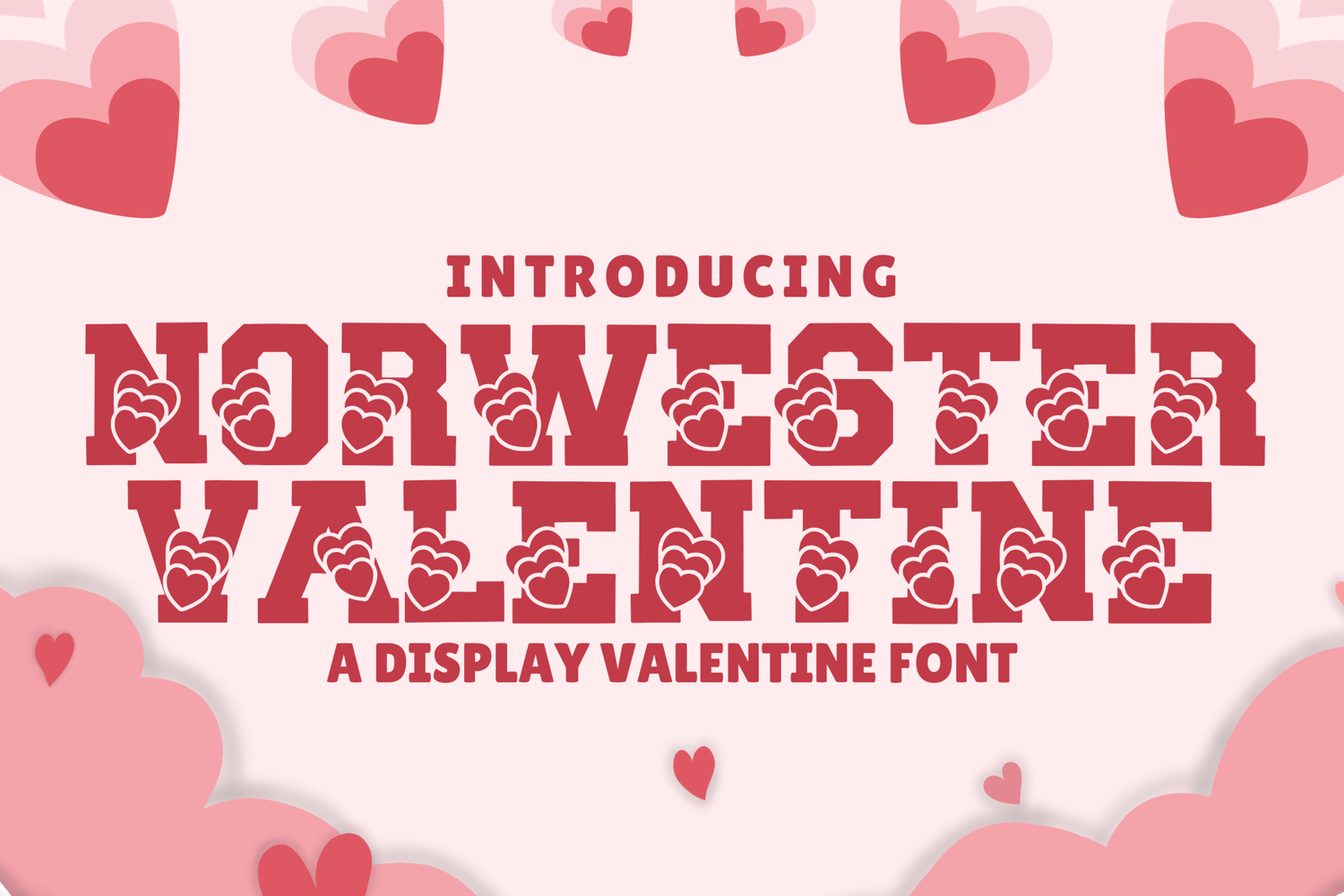
Norwester Valentine - Bold Varsity Love Font
Norwester Valentine
Celebrate love with Norwester Valentine, a bold all-caps varsity block font infused with a romantic twist. Inspired by the strength of collegiate typography, this font adds a playful Valentine’s vibe to the classic Norwester style, making it perfect for greeting cards, seasonal crafts, apparel, and love-themed branding.
Whether you’re designing Valentine’s Day posters, classroom decorations, wedding signage, or couple t-shirts, Norwester Valentine delivers a strong yet charming typographic presence.
✨ Features:
• All-Caps Varsity Typeface with a festive romantic theme
• Bold, condensed letterforms for maximum impact
• Includes uppercase, numbers, punctuation & multilingual support